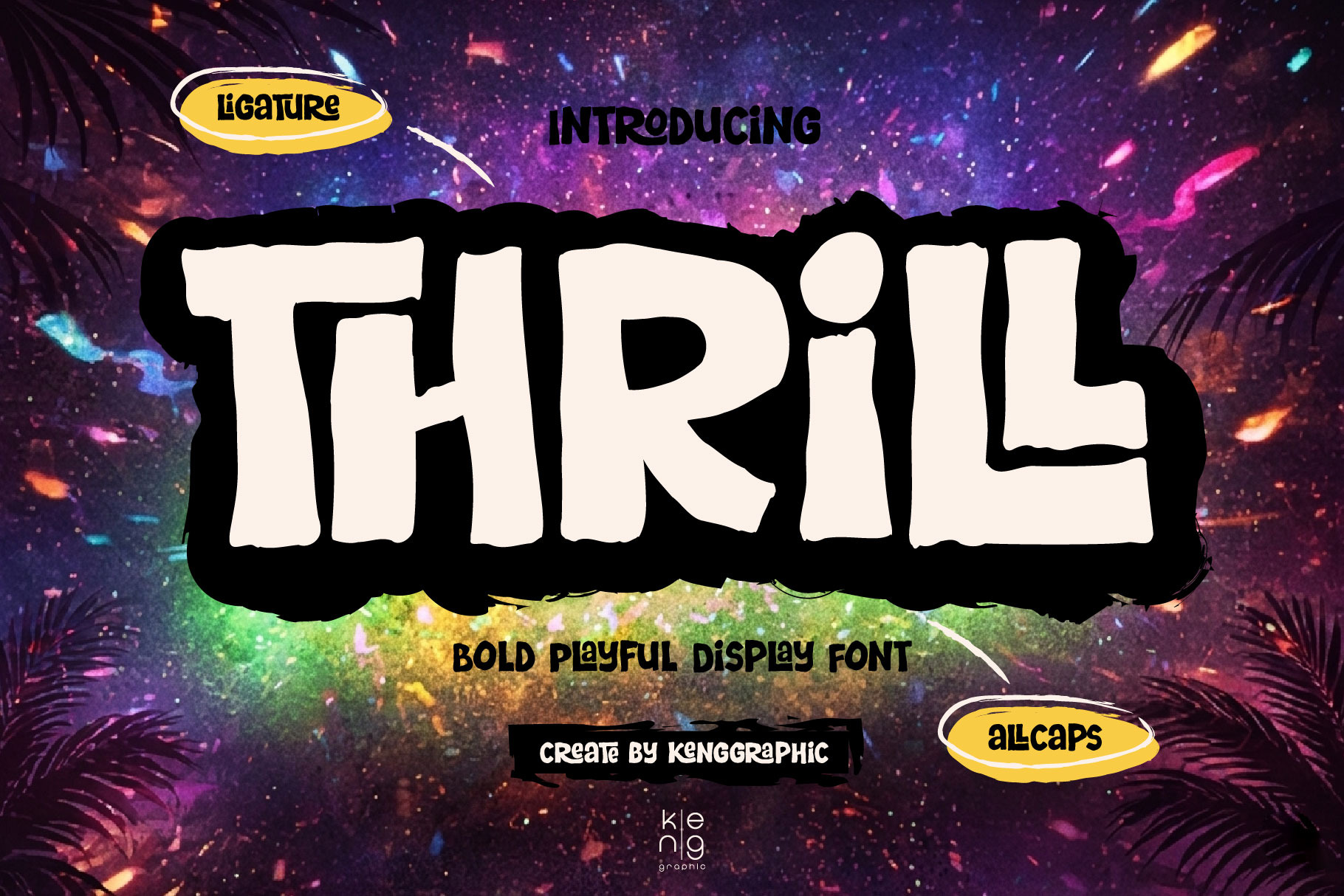
THRILL font
THRILL is a bold, playful display font with a raw, handmade edge. Built to grab attention instantly and inject high energy into your design.
Its imperfect shapes and organic style bring personality and movement, while built-in ligatures create a smoother, more dynamic flow.
Make it loud. Make it stand out. Make it THRILL.